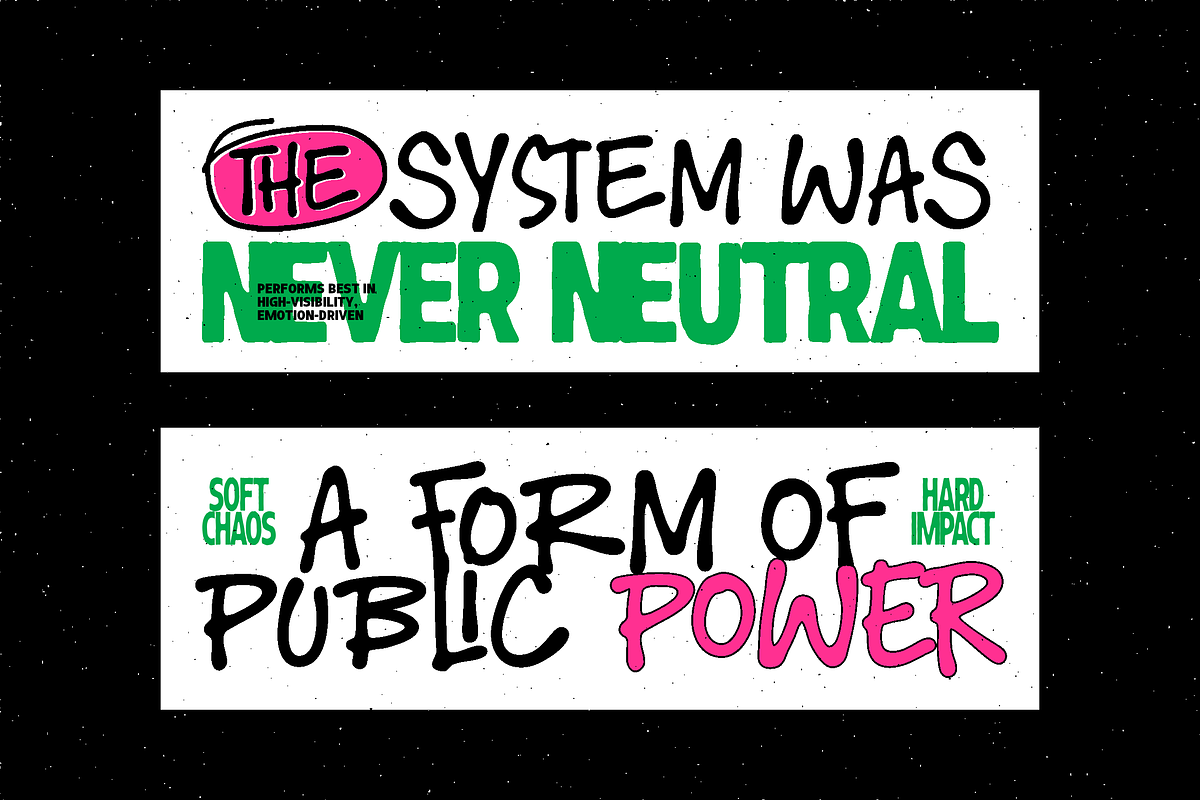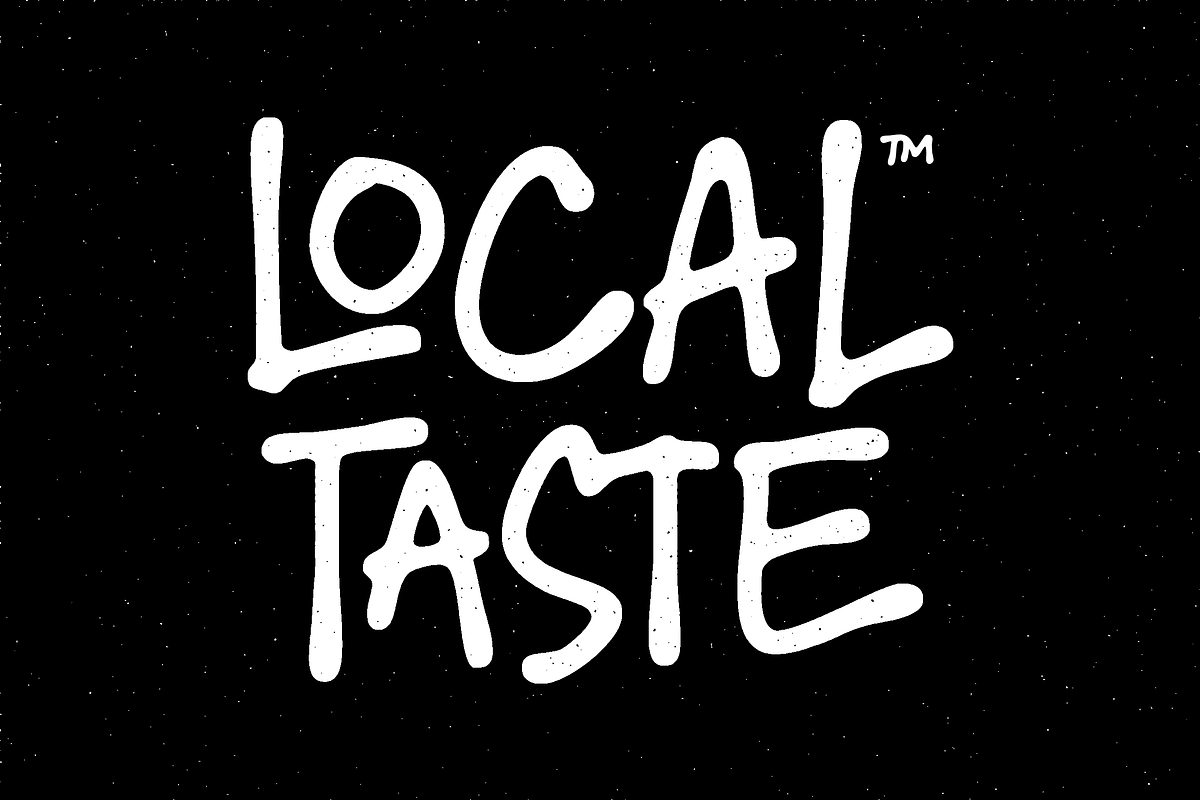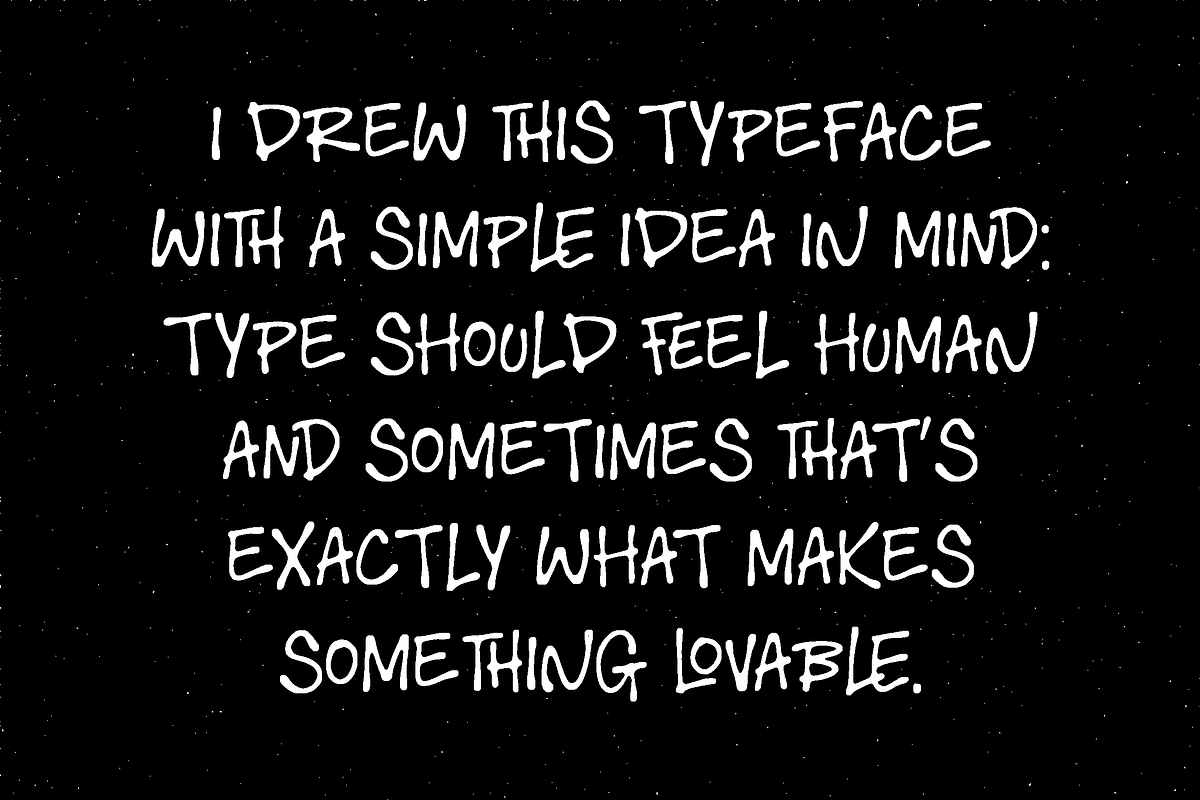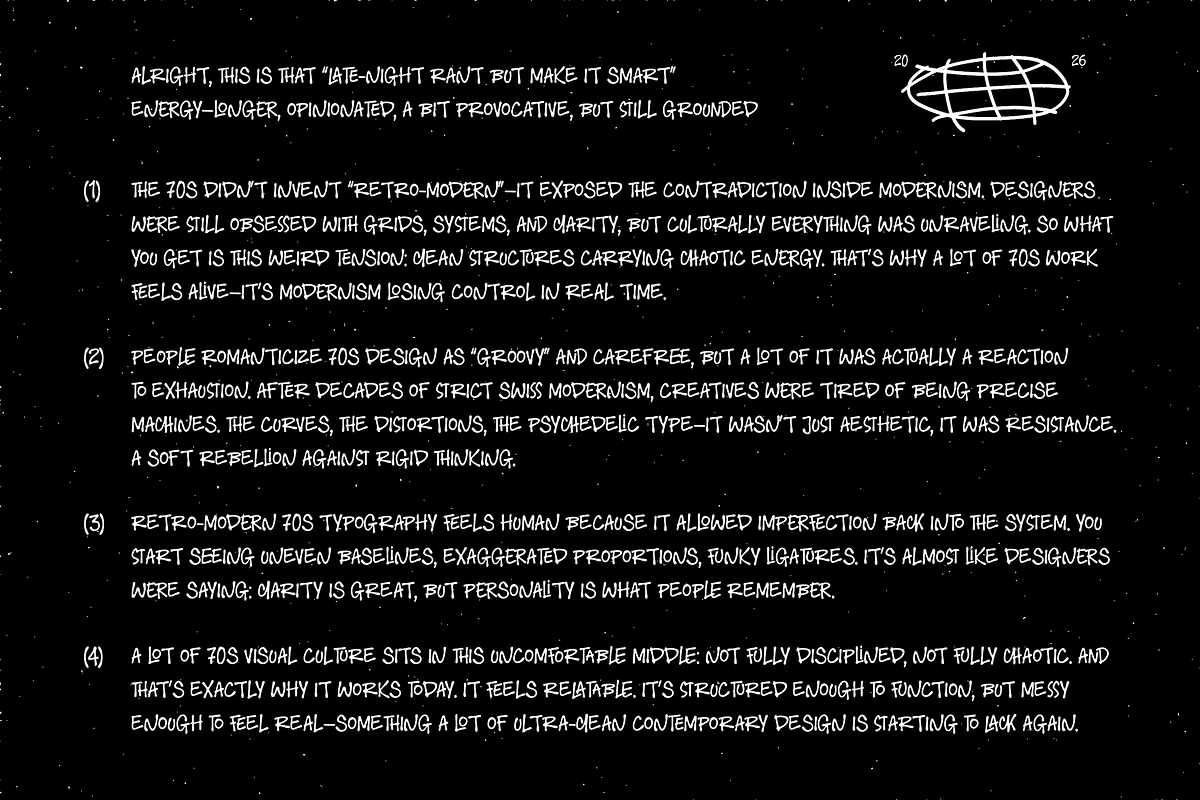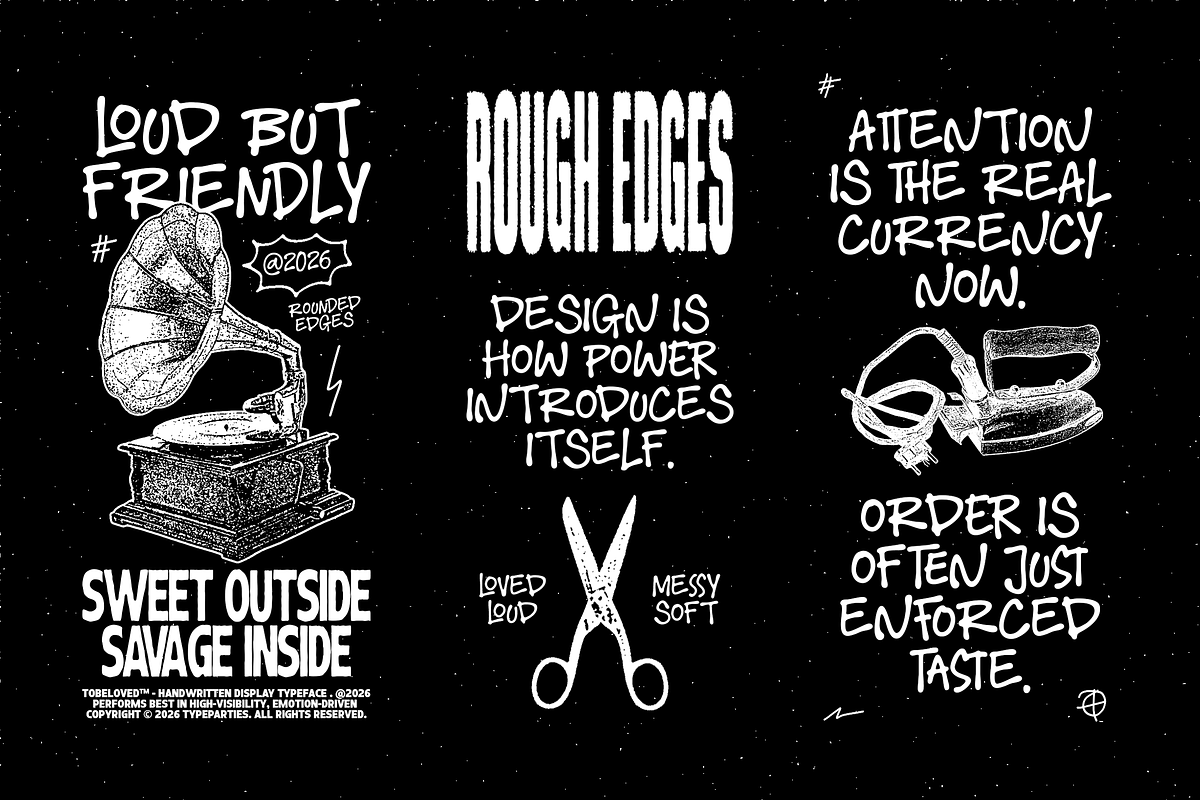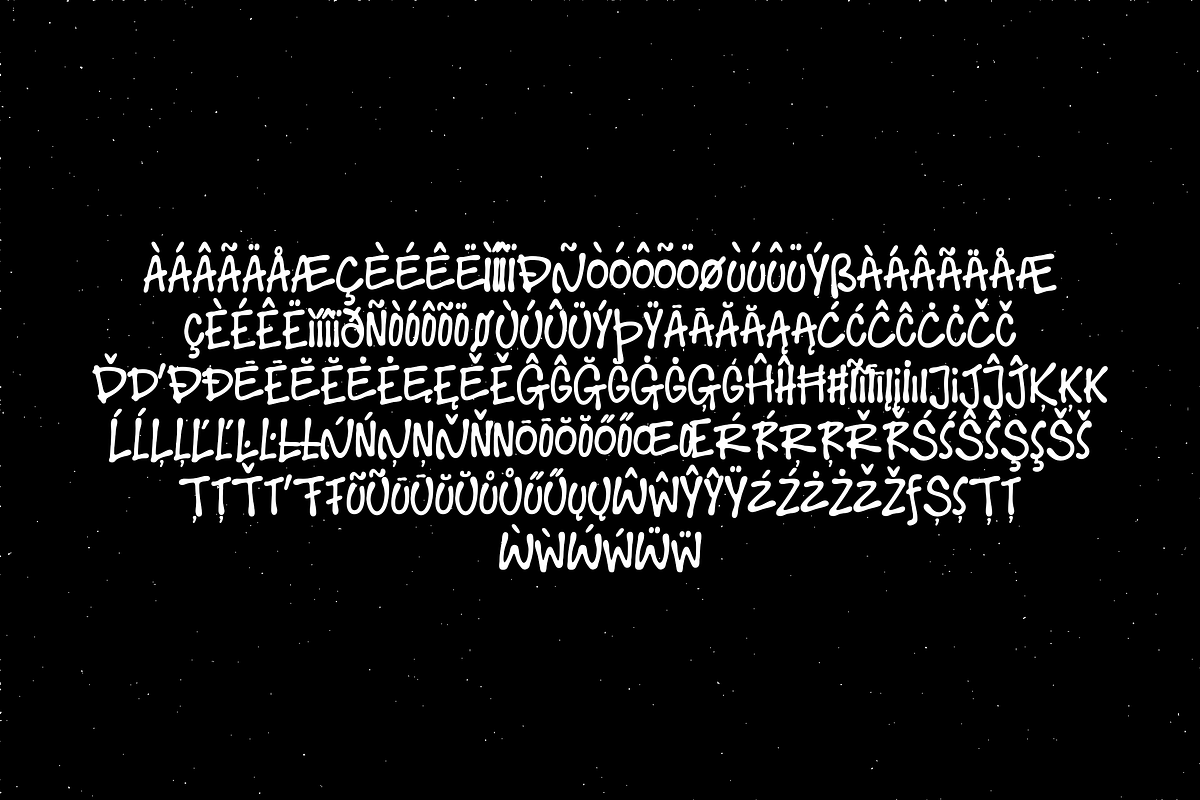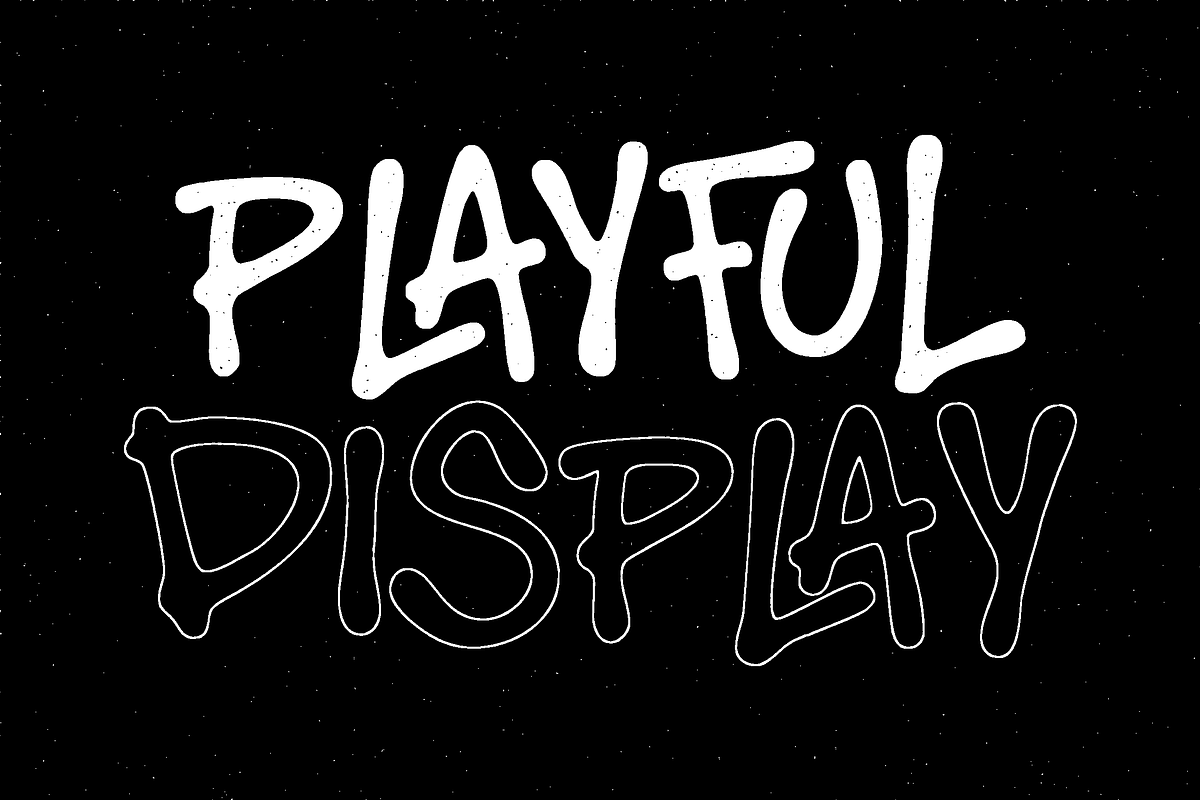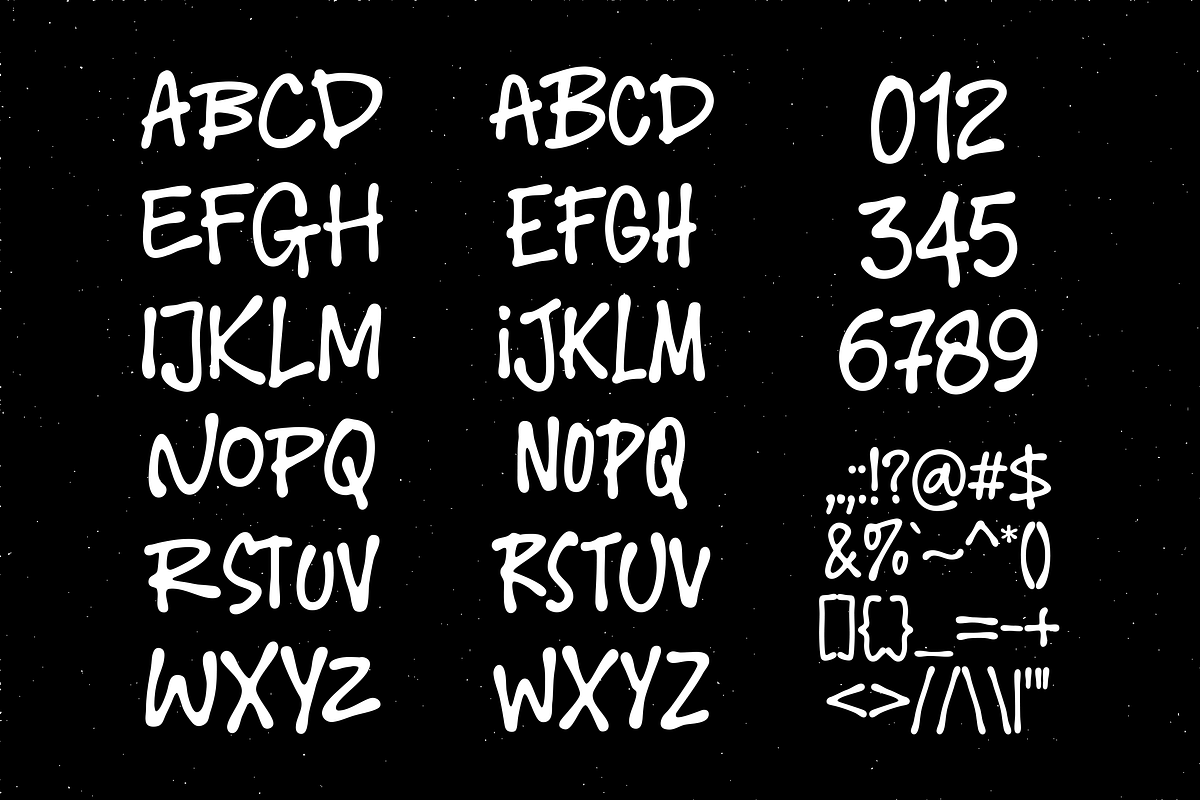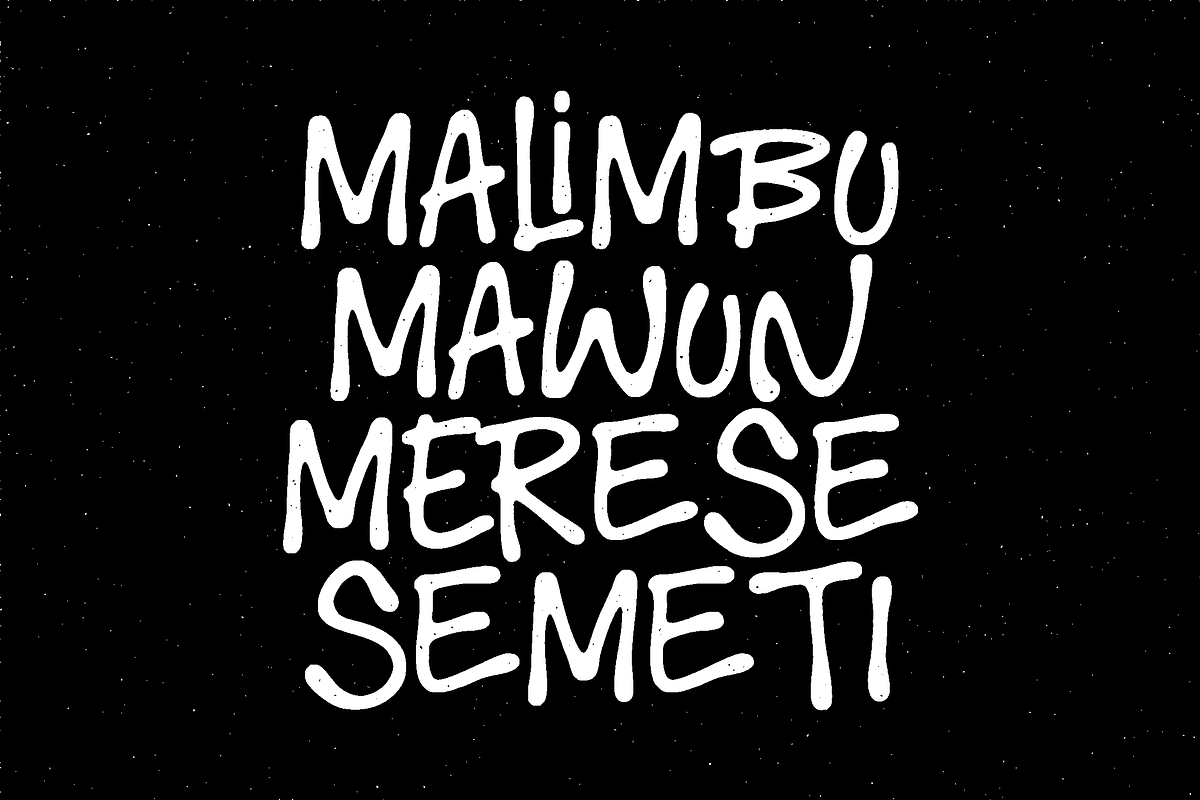
Tobeloved - Handwritten Display Font
I drew this typeface with a simple idea in mind: type should feel human. Tobeloved is a playful handwritten display font inspired by spontaneous marker lettering, the kind of writing that happens when you stop overthinking and just let the hand move. The strokes are bold, rounded, and slightly imperfect, giving the letters a warm, expressive rhythm that feels alive on the page. Every character carries a casual confidence. The shapes are loose but intentional, making the font easy to read while still full of personality. It sits somewhere between comic lettering, playful branding type, and raw hand-drawn typography.
I designed Tobeloved to shine in places where emotion matters more than perfection. It works beautifully for posters, creative branding, packaging, children’s products, comic-style graphics, social media visuals, stickers, and expressive headlines that need to feel friendly and approachable. This typeface doesn’t try to be perfect. It tries to be real.